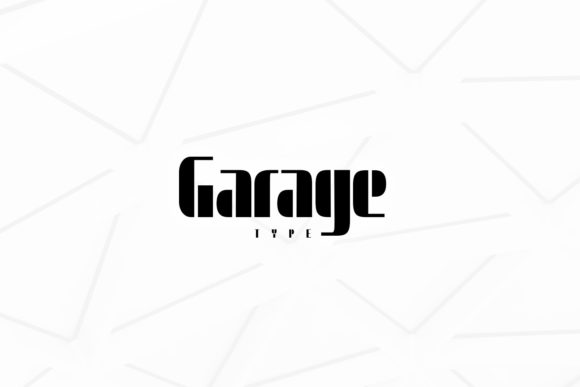
**Introducing Garage Font: The Ultimate Display Font for Unparalleled Visual Impact**
In the realm of digital design, fonts hold the power to transform ordinary words into captivating expressions, elevating your messages beyond mere text. Enter Garage Font, a modern and audacious display font crafted by the visionary designers at BeeType. Prepare to be mesmerized as Garage Font takes center stage, commanding attention and leaving an indelible mark on your audience.
**A Font Designed to Ignite Creativity**
With its sleek and contemporary design, Garage Font is a symphony of sharp lines, bold curves, and impeccable balance. Its carefully crafted characters exude an air of sophistication and modernity, while maintaining a touch of playfulness that sparks creativity. Whether you're a seasoned designer seeking to elevate your projects or a passionate hobbyist eager to make a statement, Garage Font is your gateway to visual excellence.
**The Perfect Choice for Web Designs That Demand Attention**
In the competitive landscape of the digital world, your website serves as your virtual storefront, a gateway to connect with your audience and showcase your unique offerings. With Garage Font as your chosen display font, you'll captivate visitors from the moment they land on your page. Its striking presence demands attention, transforming ordinary headings into captivating focal points that entice users to delve deeper into your content. Garage Font is your secret weapon to making a lasting impression and leaving a trail of digital footprints.
**Business Cards That Leave a Lasting Impression**
In the world of business, first impressions matter. Your business card is often the first tangible representation of your brand, a silent ambassador that speaks volumes about your professionalism and attention to detail. Garage Font empowers you to create business cards that transcend the ordinary, leaving a lasting impression on potential clients and partners. Its bold and distinctive characters command attention, ensuring that your card stands out from the clutter and makes a statement that resonates long after the initial encounter.
**A Multifaceted Font for Endless Creative Possibilities**
Garage Font's versatility extends far beyond web designs and business cards. Its inherent charm shines through in a myriad of applications, from social media graphics that pop to eye-catching posters that demand attention. Whether you're crafting marketing materials, designing product packaging, or simply seeking to add a touch of flair to your personal projects, Garage Font is your trusted companion, ready to elevate your designs to new heights.
**Experience the Garage Font Difference Today**
Don't settle for ordinary fonts that blend into the background. Embrace the power of Garage Font and unlock a world of creative possibilities. Its modern aesthetic, captivating presence, and boundless versatility make it the ultimate choice for designers and enthusiasts alike. Embrace the Garage Font revolution and witness the transformation of your designs into captivating expressions that resonate with your audience.